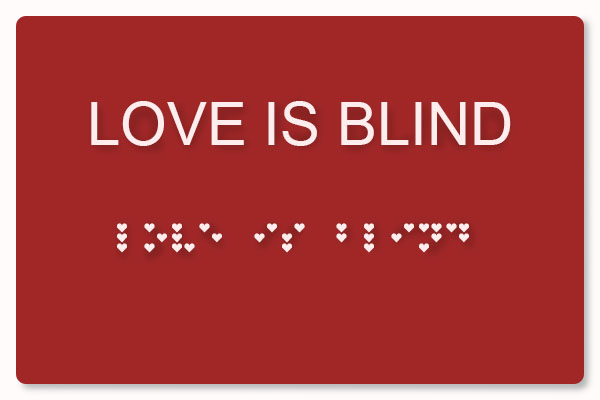
I have a similar idea, except there are small heart to complete the 2x3 size.
Maybe I should do my version.
Great job. With this font, we can touch the love from heart. ;)